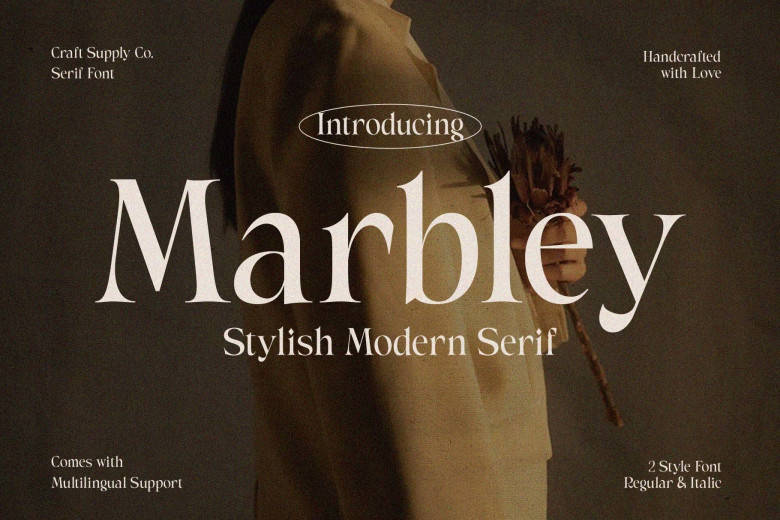
Marbley Font
Marbley stylish modern serif font with perfect contrasts with the surrounding. The remarkable and stylish characters and its incredible style are perfect for creating stunning designs that give any composition a classic feel.
Marbley Modern Serif Font